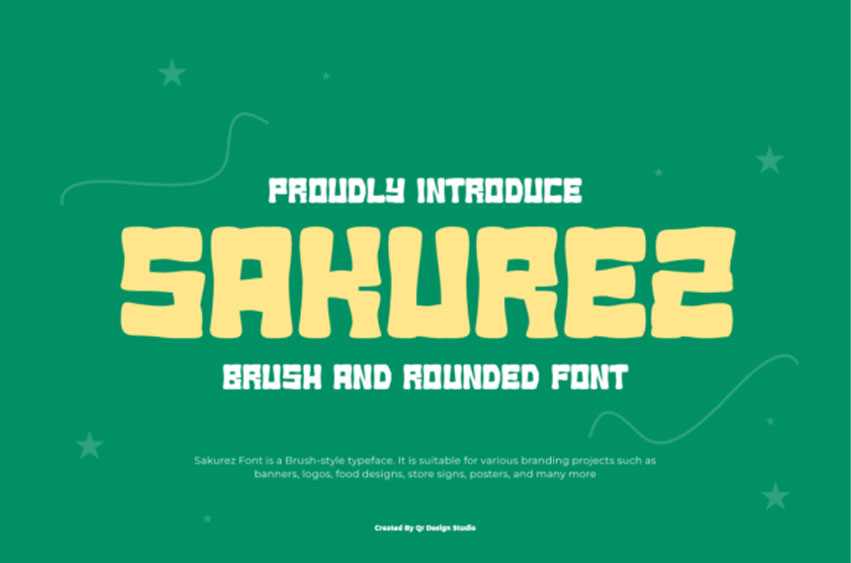
Sakurez Font Make a bold statement with Sakurez font, a heavy-duty display typeface that combines a rugged brush-stroke feel with soft, rounded edges.
The Sakurez typeface is built for impact, featuring thick, blocky letterforms that are perfect for sports branding, street-style apparel, and high-energy poster designs. Its unique “chunkiness” gives it a playful yet powerful presence that works exceptionally well for food industry logos—think burger joints or snack packaging where you want a “full” and satisfying look.
The Sakurez font is highly legible even from a distance, making it an ideal choice for store signs and billboard headlines. Pair the Sakurez typeface with vibrant, high-contrast colors like neon green or electric yellow to lean into its urban, energetic personality.
Whether you are designing a gaming logo or a bold marketing banner, this font commands attention and refuses to be ignored.